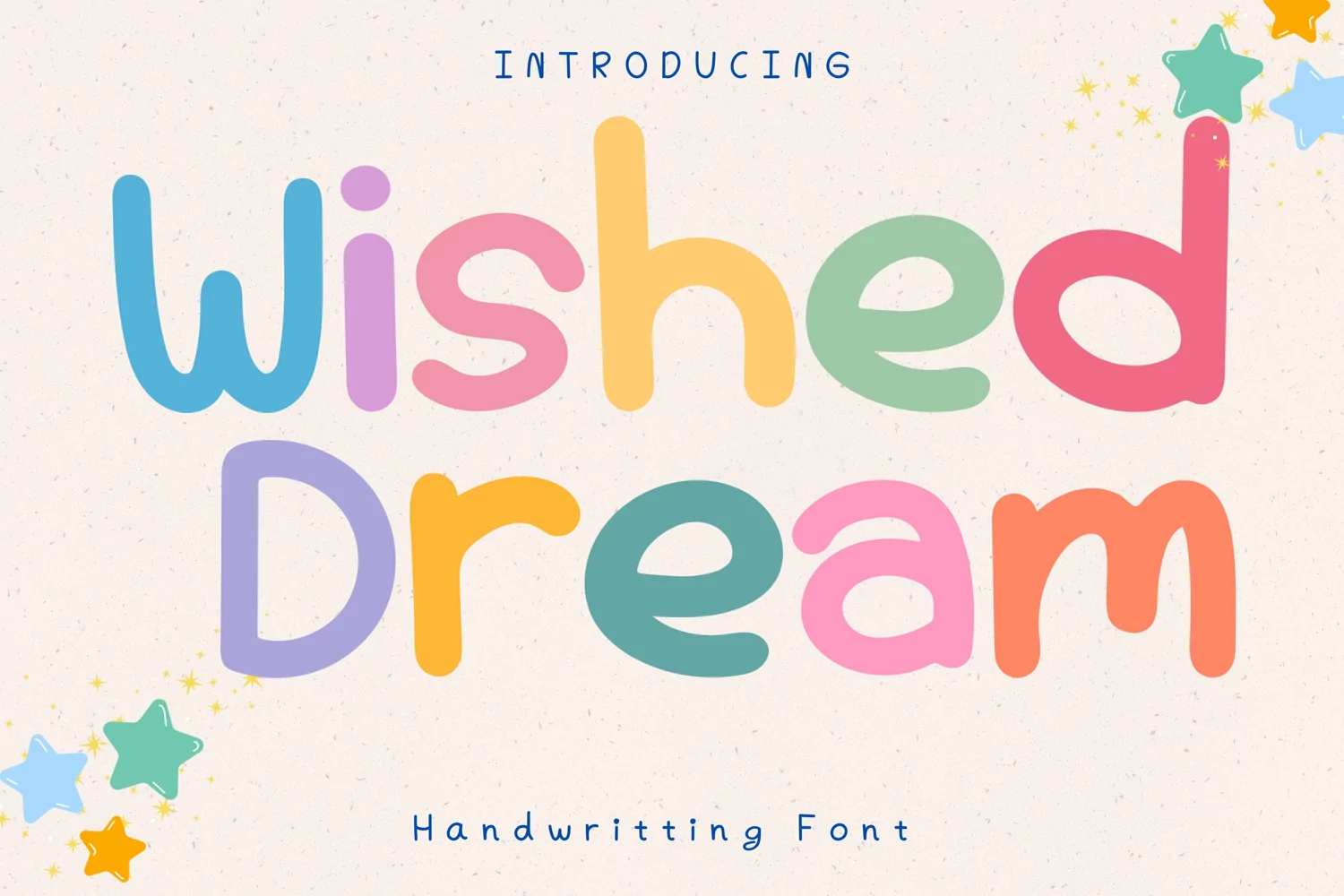
Wished Dream Style
WishedDream
Wished Dream Style is a whimsical and clean handwritten font. It can easily be matched to an incredibly large set of projects, so add it to your creative ideas and notice how it makes them stand out!